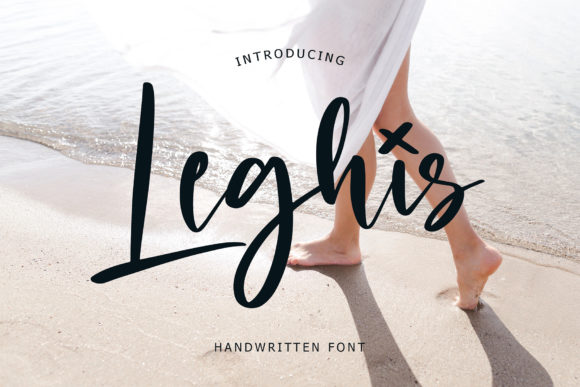
Have you ever dreamed of having a font that is both whimsical and elegant? A font that can add a touch of magic to any project? Look no further than Leghis Font! This beautiful script font is perfect for adding a personal touch to your designs. Whether you're creating invitations, logos, or social media posts, Leghis Font will make your words stand out. It is carefully designed by Giant Design, with a lovely style that will surely add interest to your work. The relaxed theme of this font makes it perfect for creating a warm and inviting atmosphere. Its swashes and alternates will allow you to add stunning details to your designs. With Leghis Font, you'll be able to create unique and eye-catching designs that will leave a lasting impression.
Leghis Font is also incredibly versatile. It can be used for a wide variety of projects, from elegant wedding invitations to fun and playful social media posts. It's especially perfect for truck lettering, as it has a bold appearance that will look great on any vehicle. This font is an excellent choice for creating a cohesive brand identity or adding a touch of personality to your personal projects.
If you're looking for a font that is both beautiful and functional, Leghis Font is the perfect choice. With its whimsical style and relaxed theme, this font will add a touch of magic to any project. So what are you waiting for? Download Leghis Font today and start creating stunning designs that will make you stand out from the crowd!